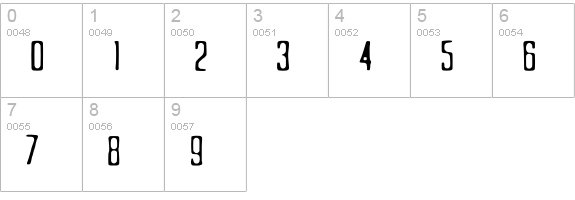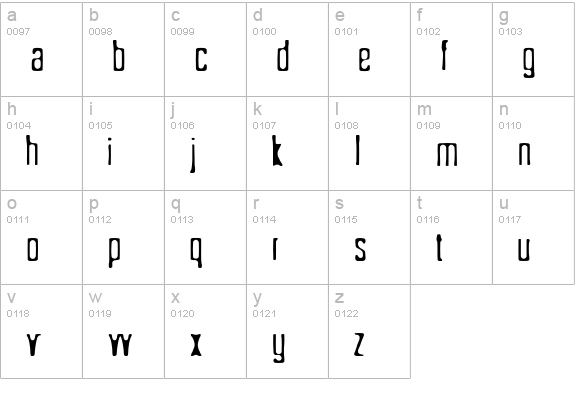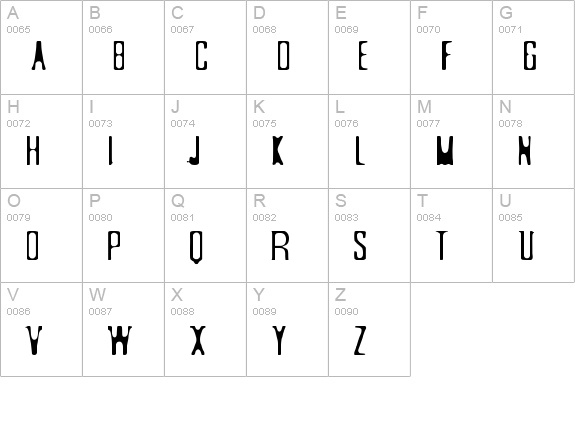
Snderfistad Font Details
Snderfistad font is a stunning display typeface that exudes elegance and sophistication. Its distinctive and intricate letterforms captivate the eye, making it perfect for adding a touch of class to any design project. With its bold strokes and graceful curves, Snderfistad font commands attention and leaves a lasting impression. What sets Snderfistad font apart is not just its remarkable aesthetics, but also its availability as a free download. Yes, you read that right - this extraordinary font is freely available to download at FontsMarket.com! Now, you can effortlessly elevate your designs without breaking the bank. Whether you're designing a logo, creating eye-catching headlines, or crafting beautiful invitations, Snderfistad font is the perfect choice to make your work stand out from the crowd. Its versatility allows it to be used in a wide range of contexts, from fashion and beauty to luxury brands and high-end products. The attention to detail in Snderfistad font is truly exceptional. Every curve and line has been meticulously crafted to ensure a harmonious and balanced appearance. The result is a font that oozes sophistication and refinement, capable of transforming any design into a work of art. With Snderfistad font, you have the freedom to explore your creativity and bring your vision to life. Its timeless elegance and versatility make it a valuable asset for designers, whether you're a seasoned professional or just starting out. Don't miss out on this incredible opportunity to enhance your designs with Snderfistad font. Visit FontsMarket.com today to download this exceptional typeface for free and unlock a world of possibilities for your creative projects.